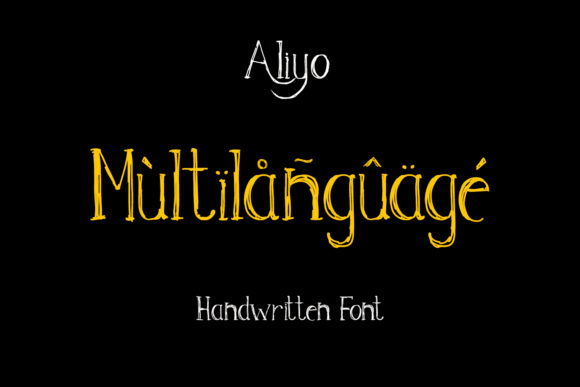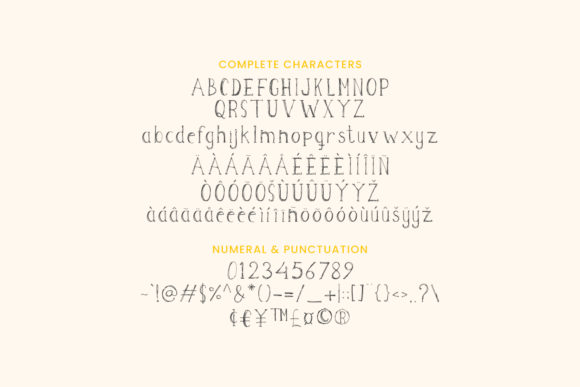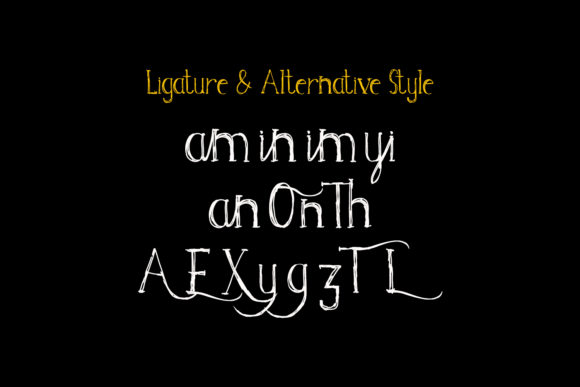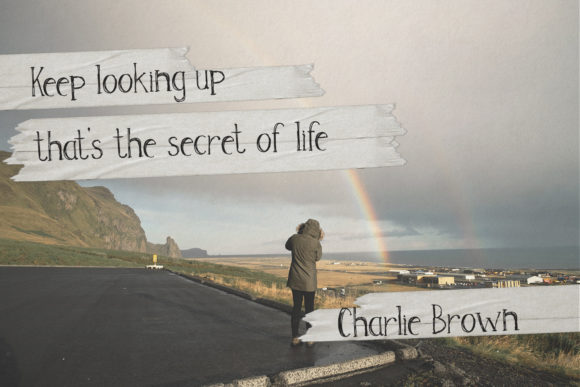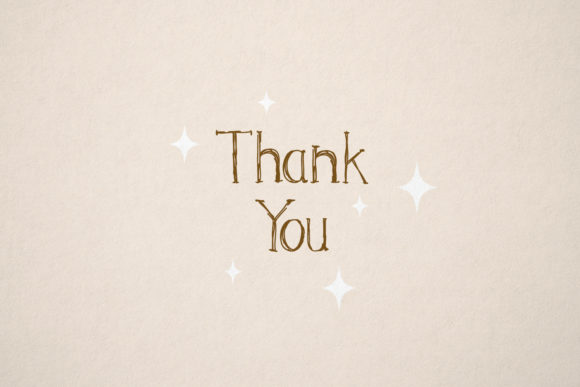
About Aliyo Script Font
Give your designs an authentic, handcrafted feel. “Aliyo Handwritten Font” is perfectly suited for signatures, stationery, logos, typography quotes, magazine or book covers, website headers, clothing, branding, packaging design and more.